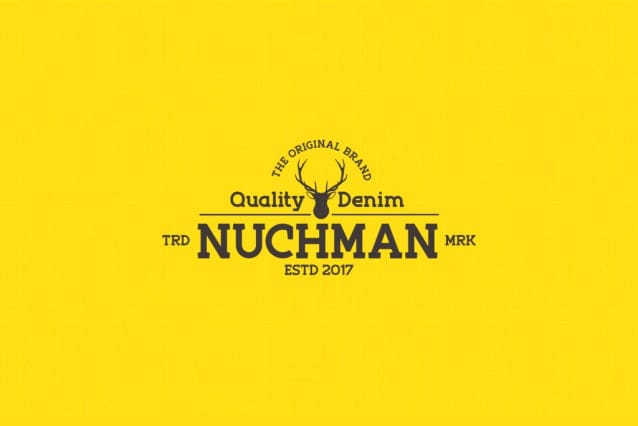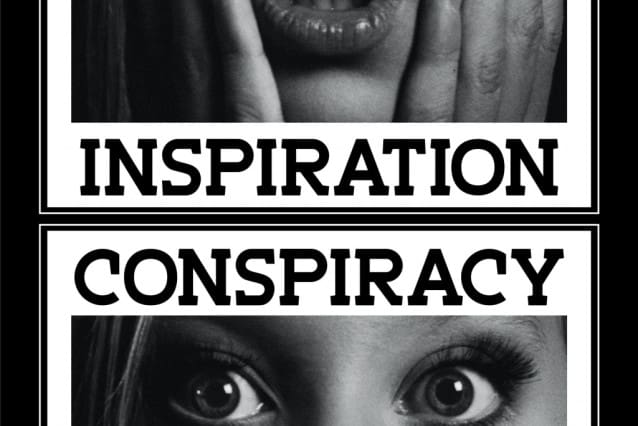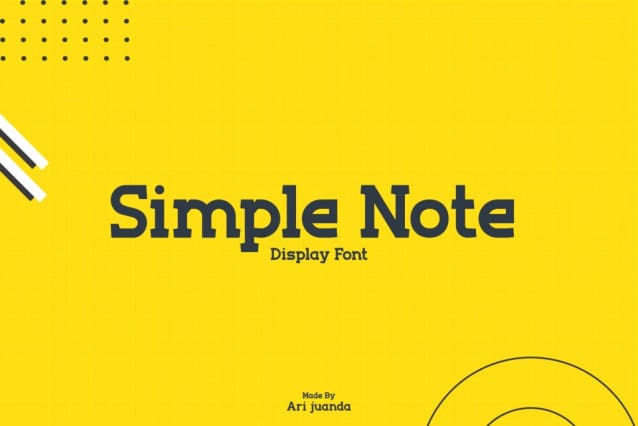
Simple Note Slab Font
Simple Note Slab Font is Modern Slab Serif Font. The Simple Note font is perfect for your upcoming project. Such as logo branding, editorial design, fashion, adventure stories, stationery design, sports design, blog design, modern advertising design, invitation cards, badges, art quotes, home decor, book titles/covers, special events and many more.